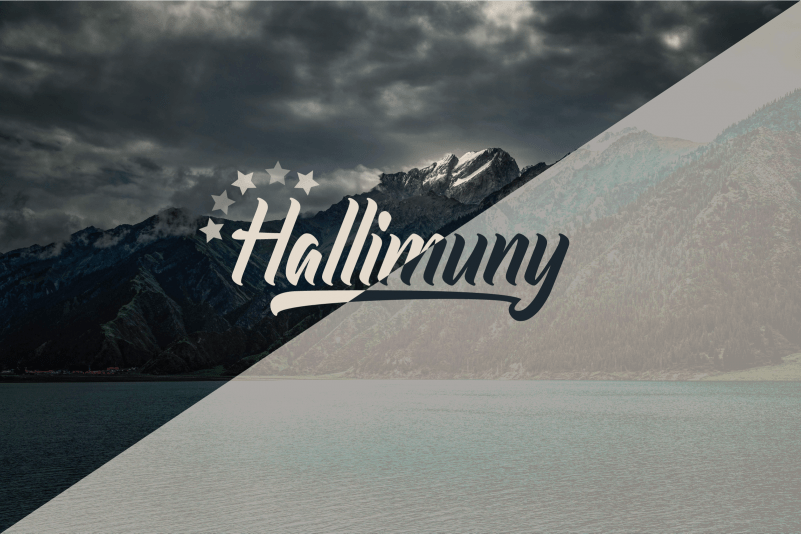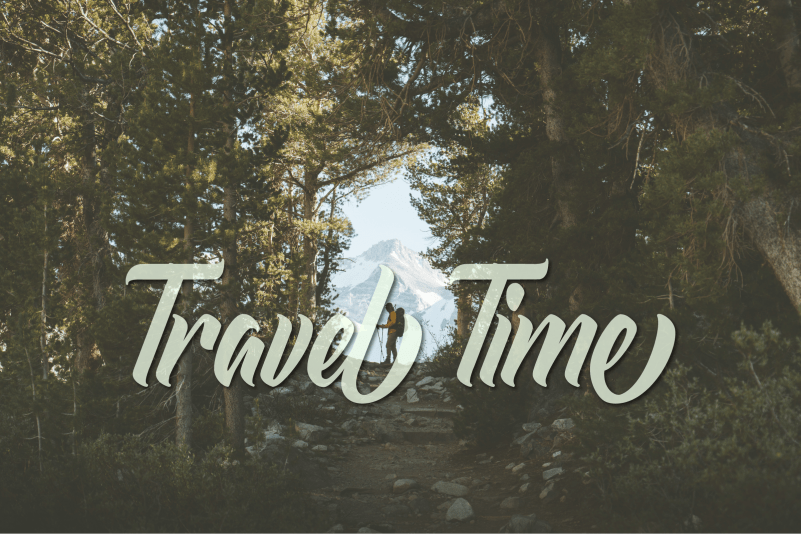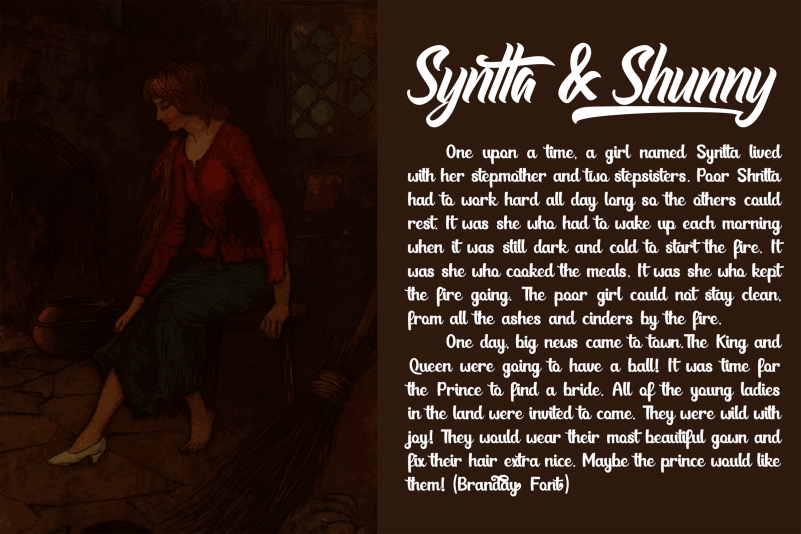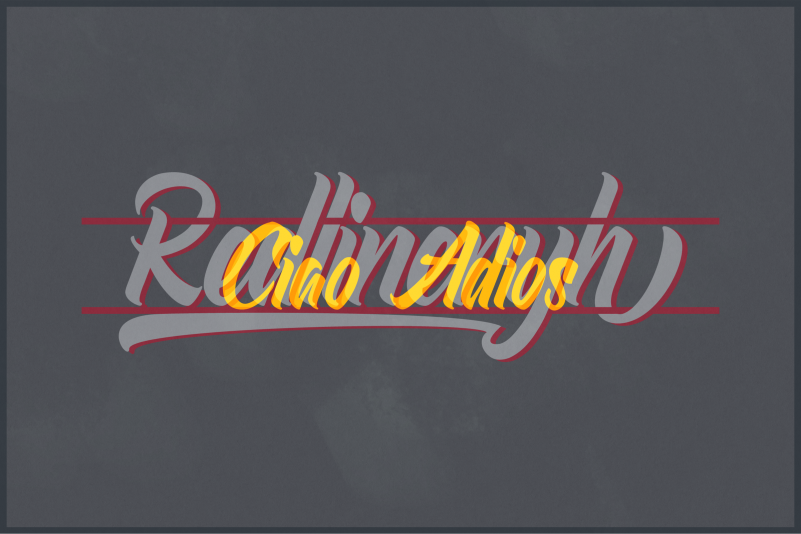
Hi….let me introduce the Redlineryh Script Font, This font was created to help you designing brand of yours own or your client, and you also can use it for designing all of the graphic stuff such as badge, sign, packaging, headline, T-shirt/apparel, Poster, etc. It’s was designed for personal characters such as strong, confidence, dynamic, readable, etc.